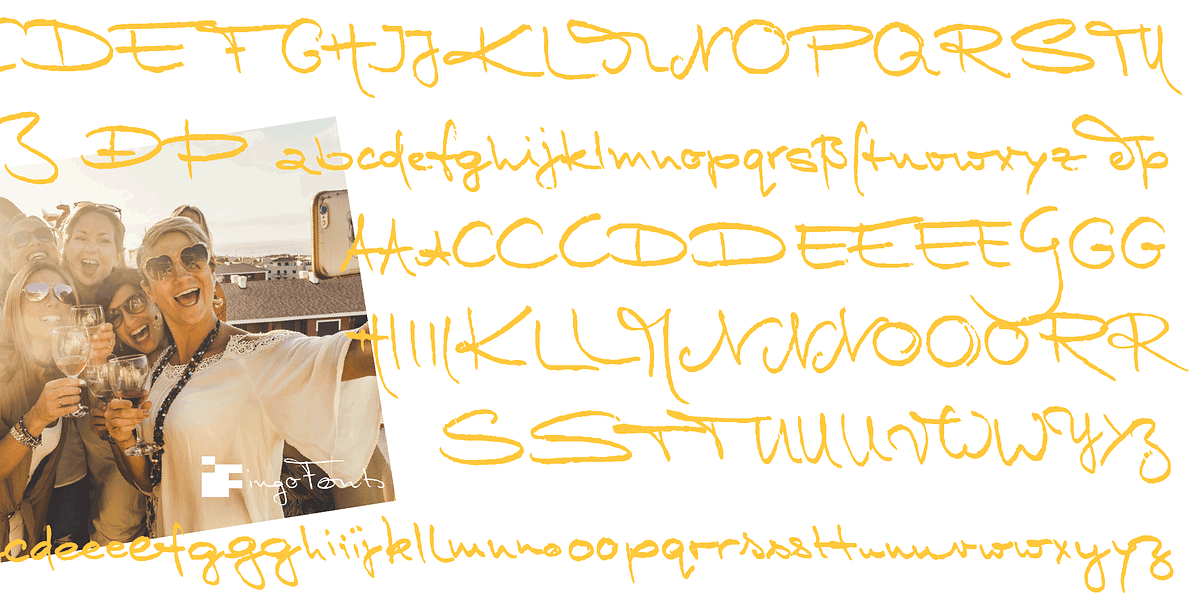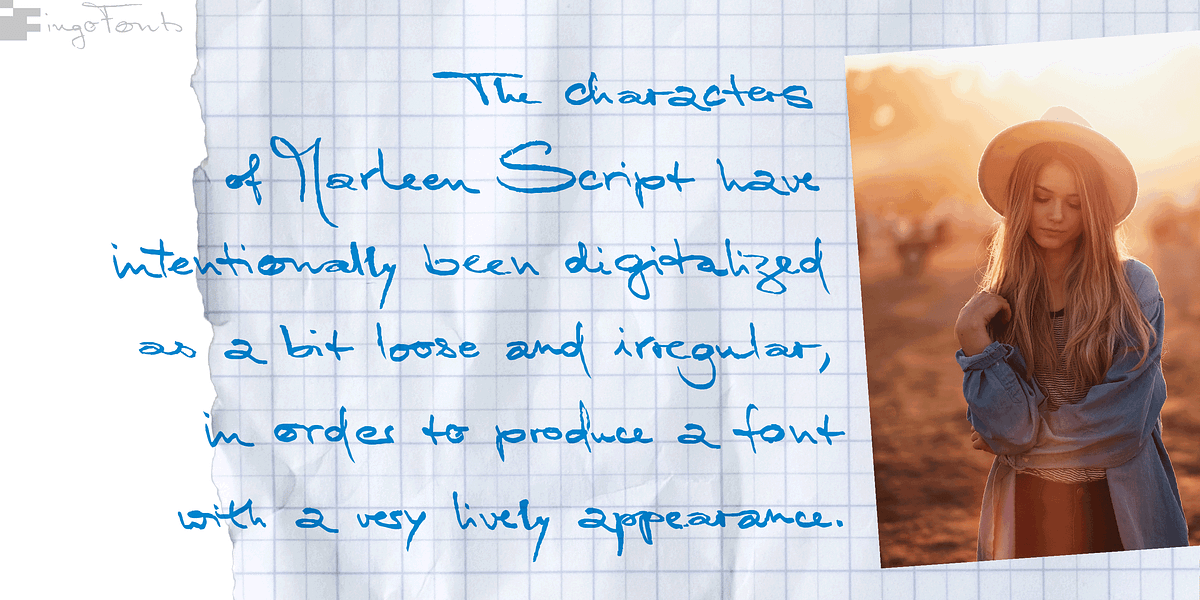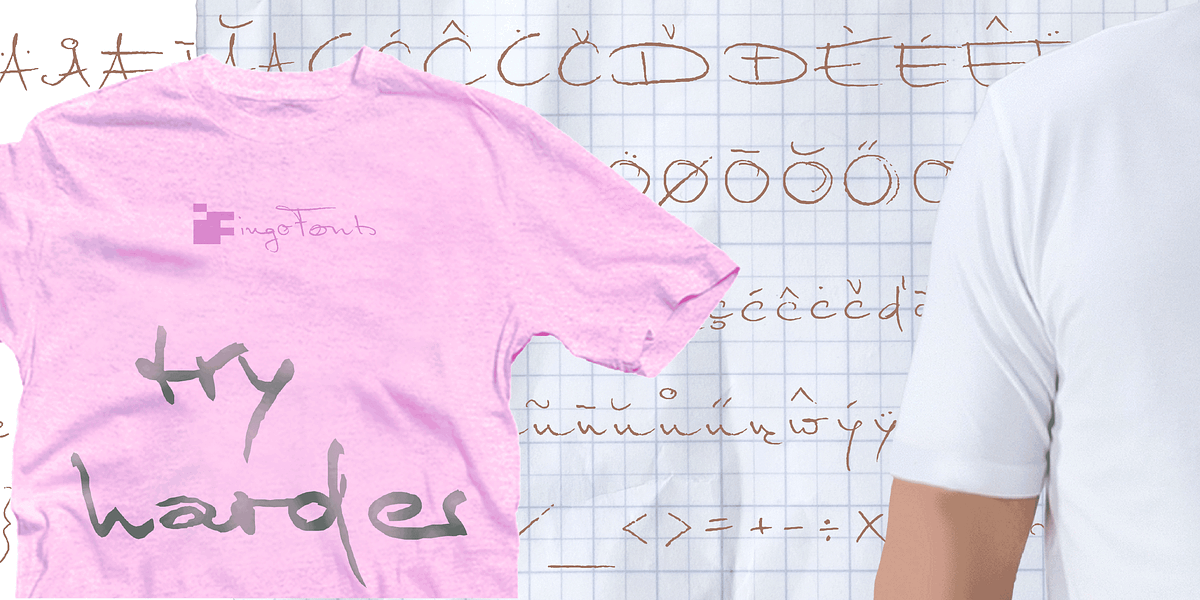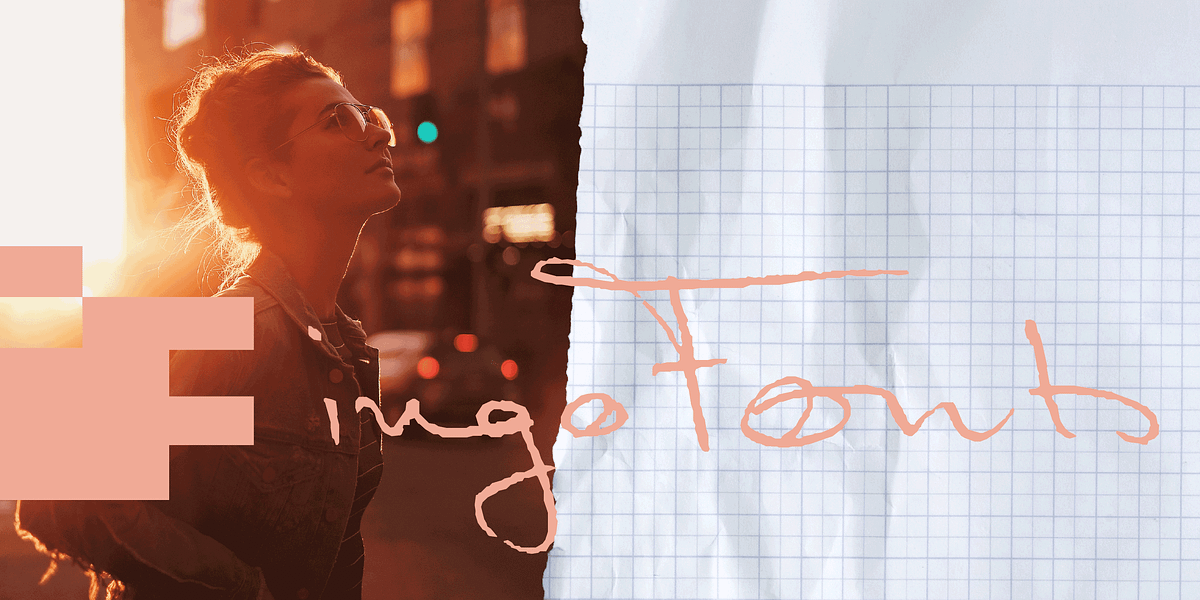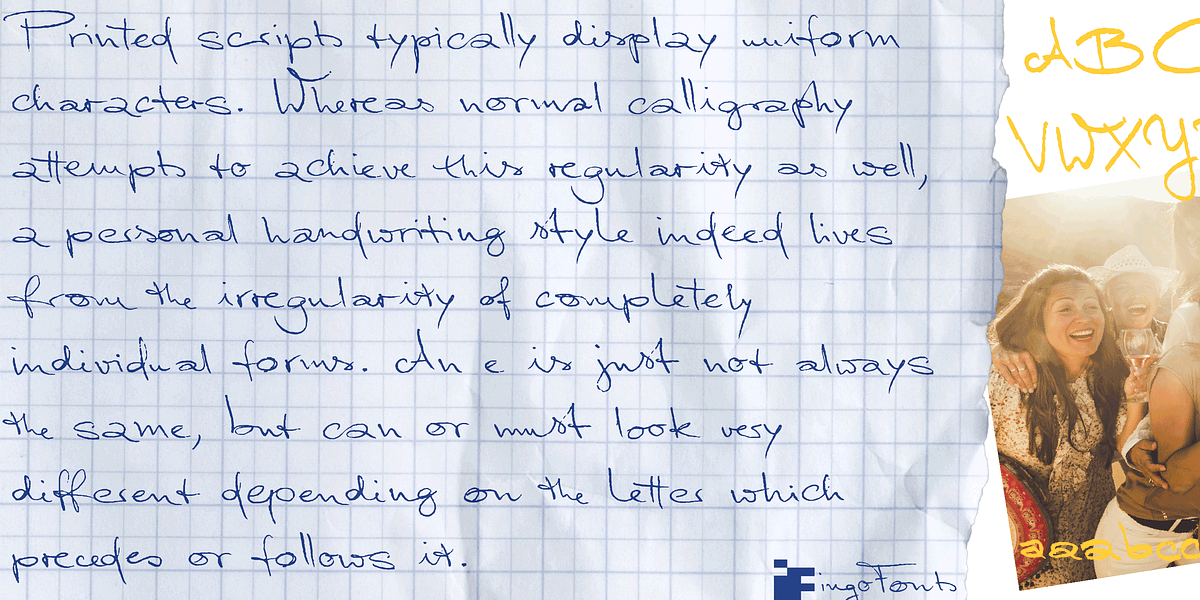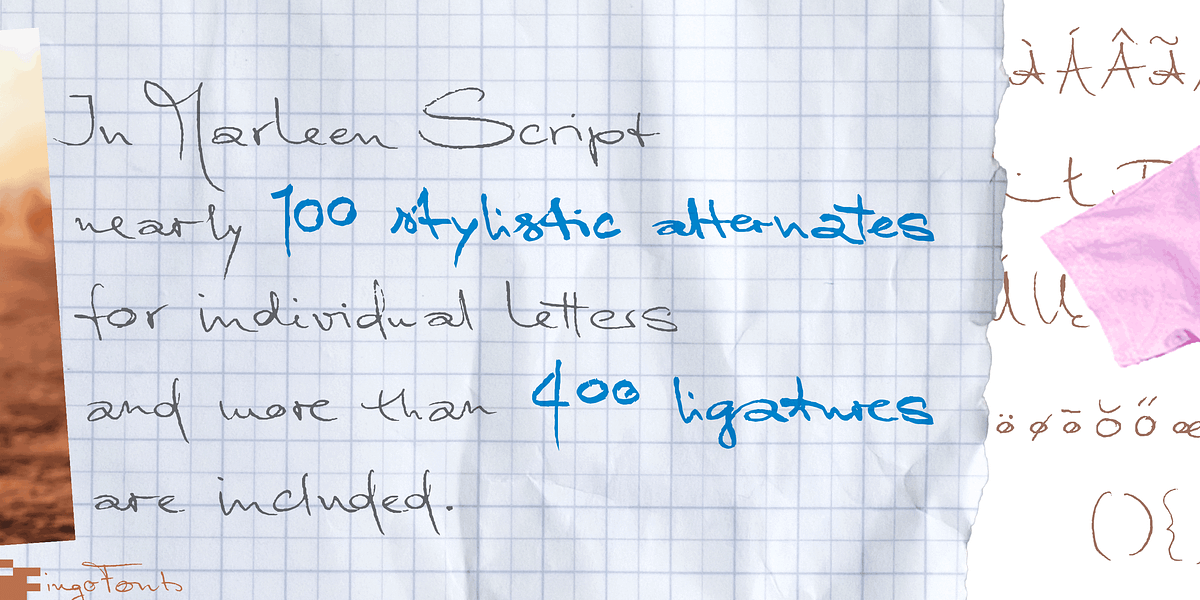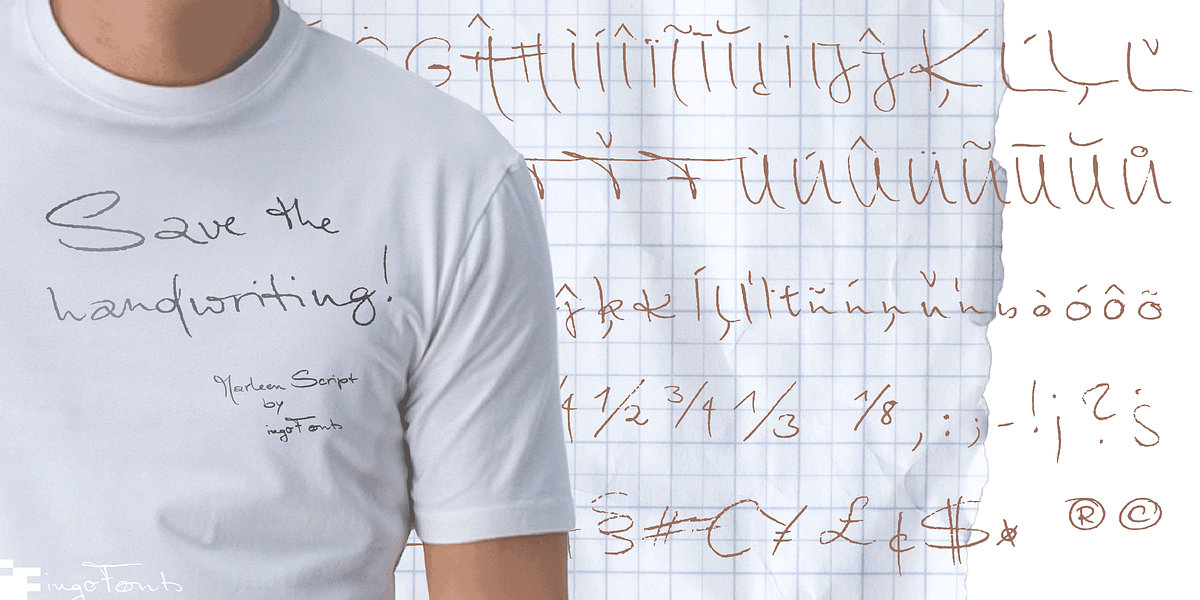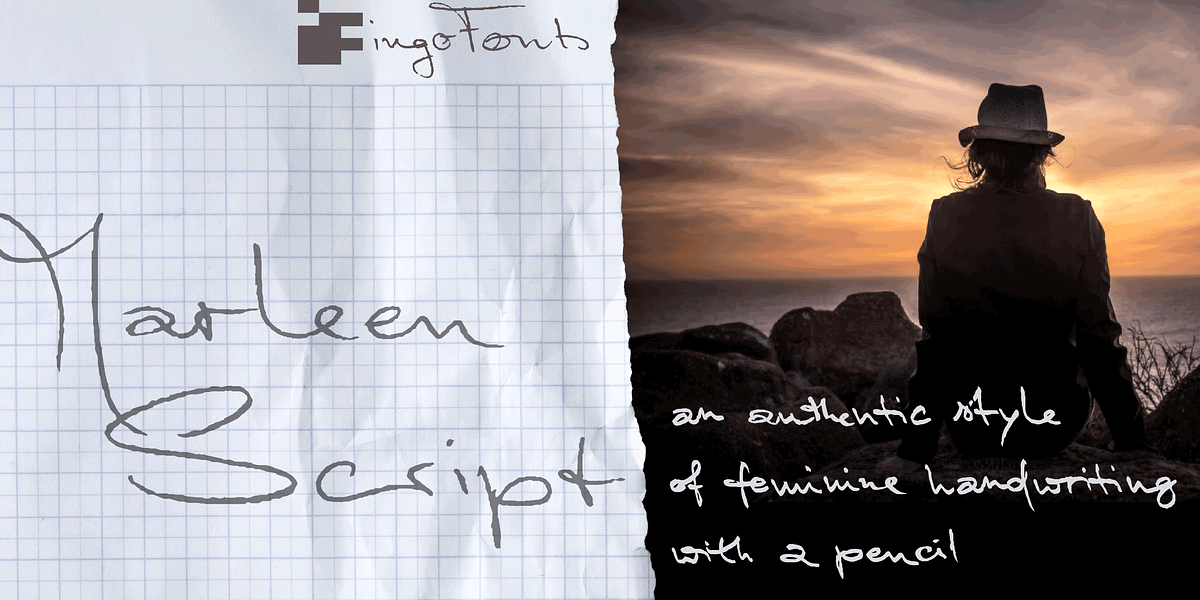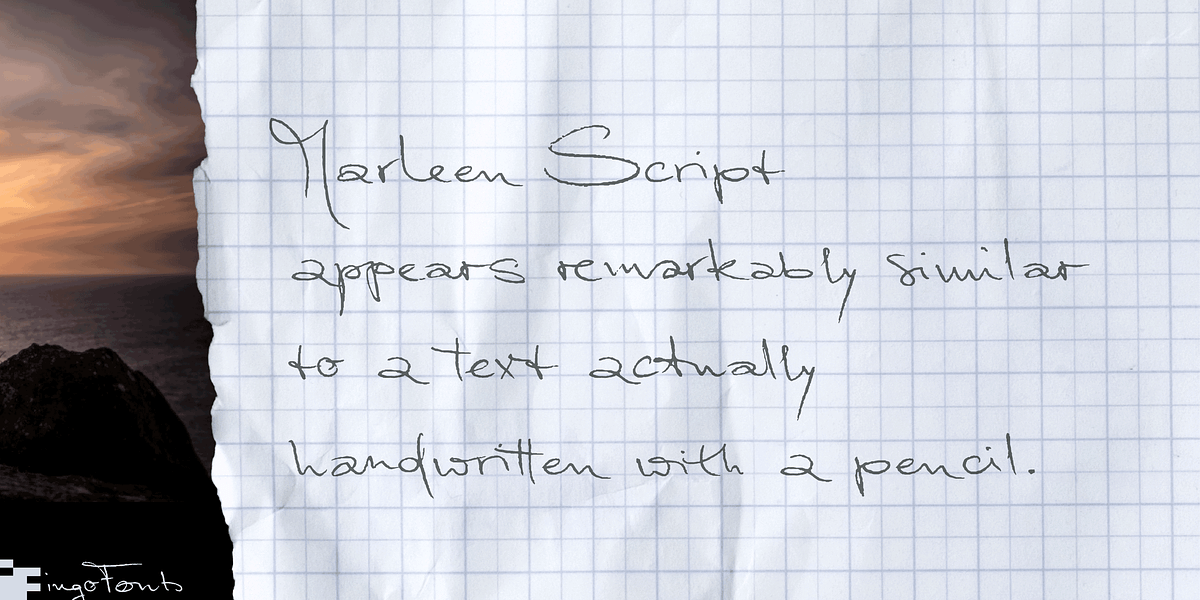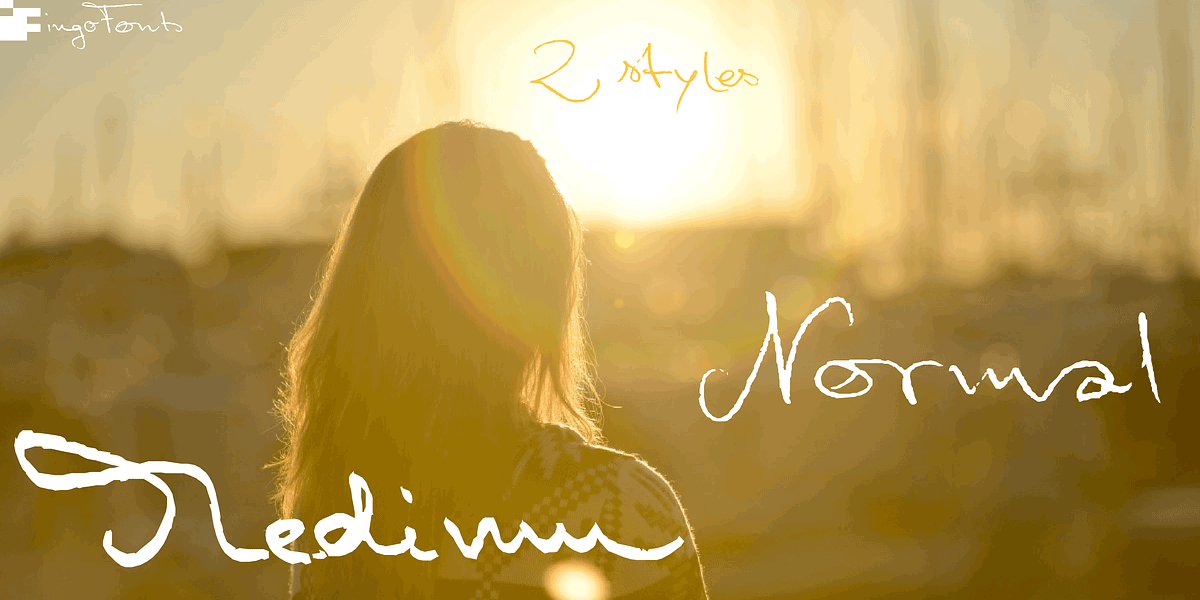
Marleen Script
Marleen Script is a hand-drawn typeface designed to emulate the look of authentic feminine handwriting with a pencil. It features nearly 100 stylistic alternates for individual letters and over 400 ligatures, ensuring that no two characters repeat exactly. This results in a remarkably natural and organic handwritten appearance.